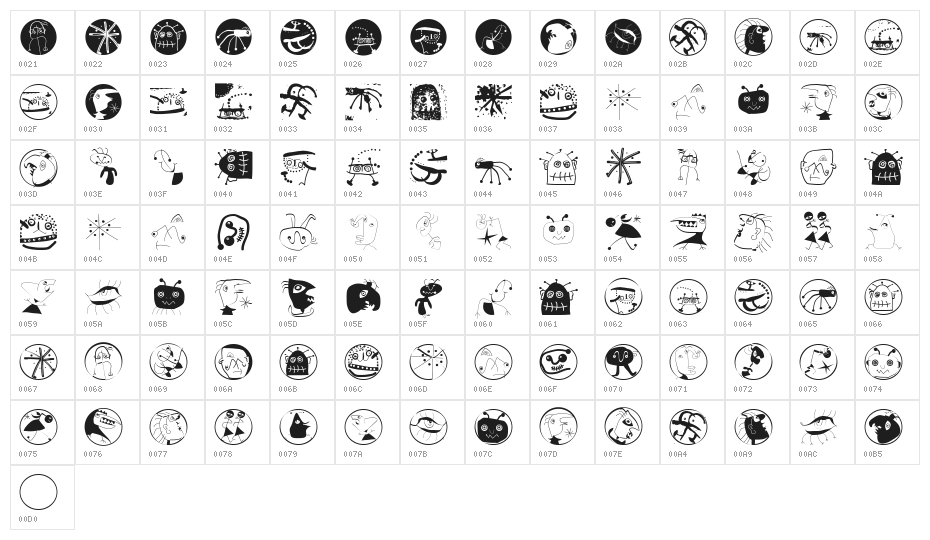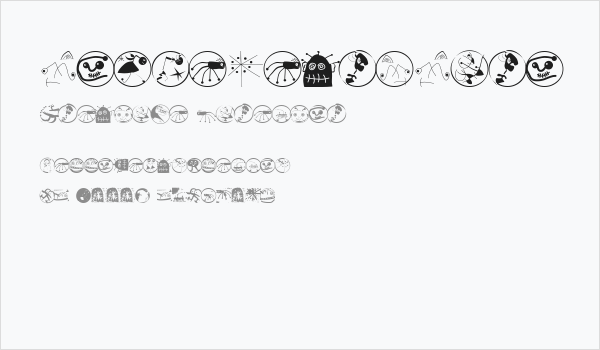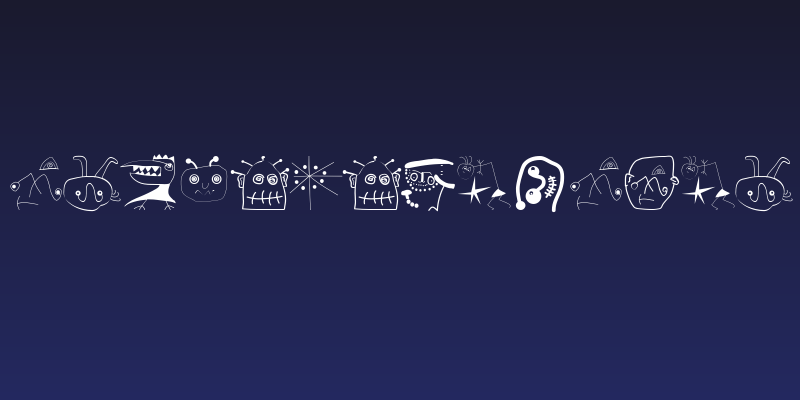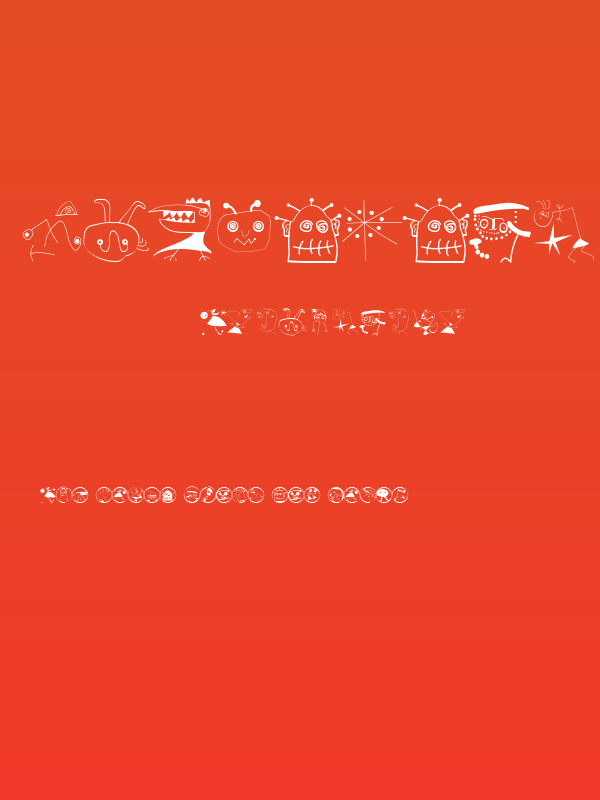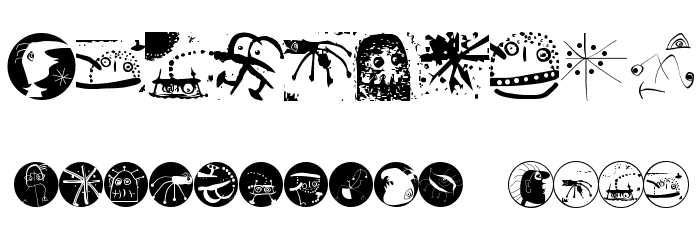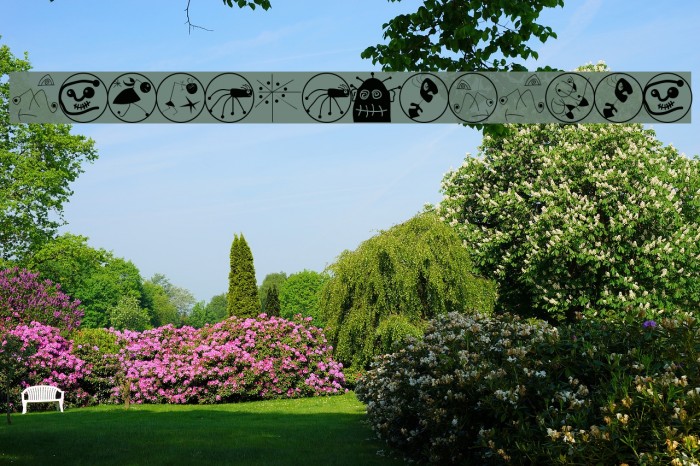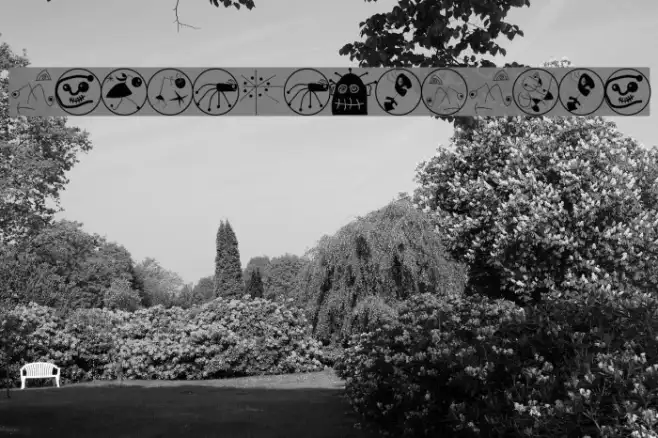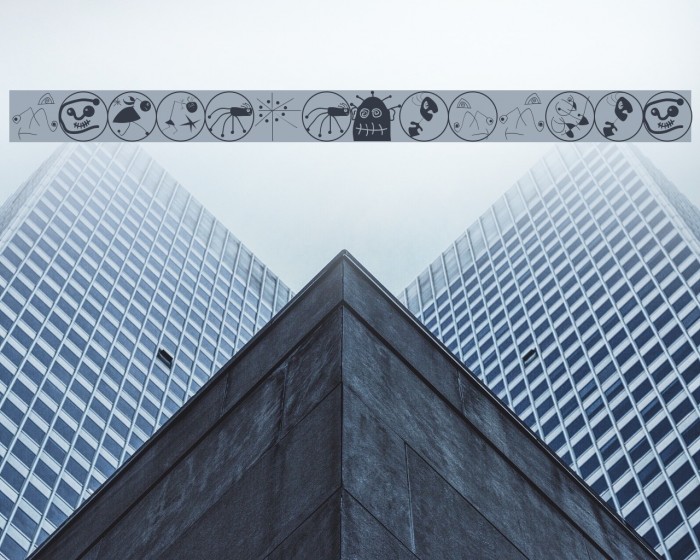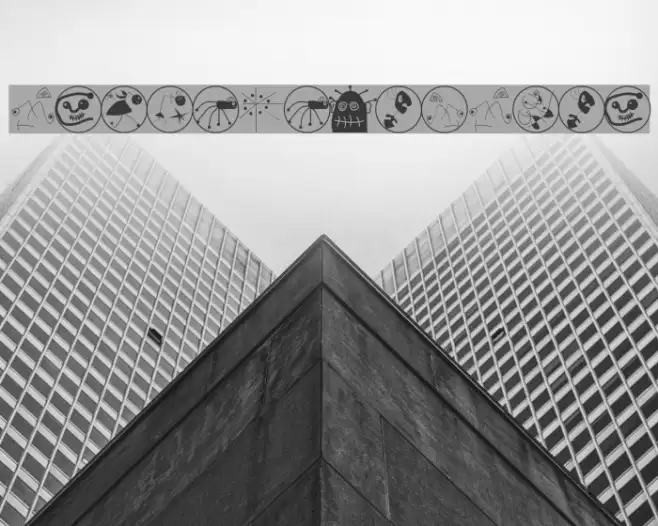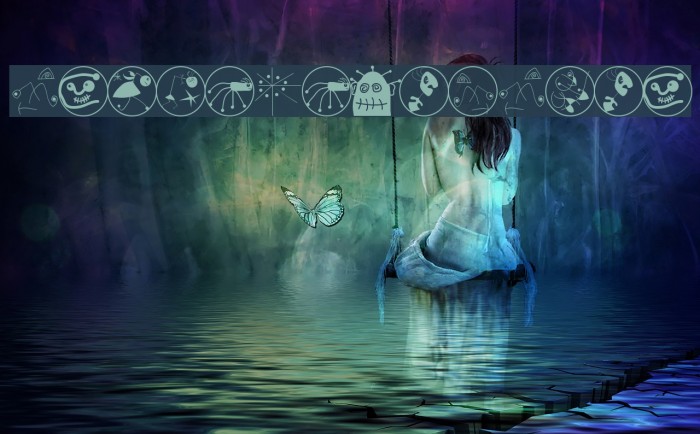
MouseLearnMiro Font
MouseLearnMiro Description
A highly decorative and whimsical font featuring abstract, playful illustrations in place of traditional letterforms, with each character rendered as a unique, cartoonish drawing. The style is reminiscent of doodles or surrealist art, with a mix of thick and thin lines, and some characters enclosed in circles or filled backgrounds.
| Overall Style | Decorative, Whimsical, Artistic |
| Use Case | Logos, Posters, Headlines, Art projects |
| Proposed Projects | Children’s books, creative posters, party invitations, art projects, branding for playful or artistic products. |